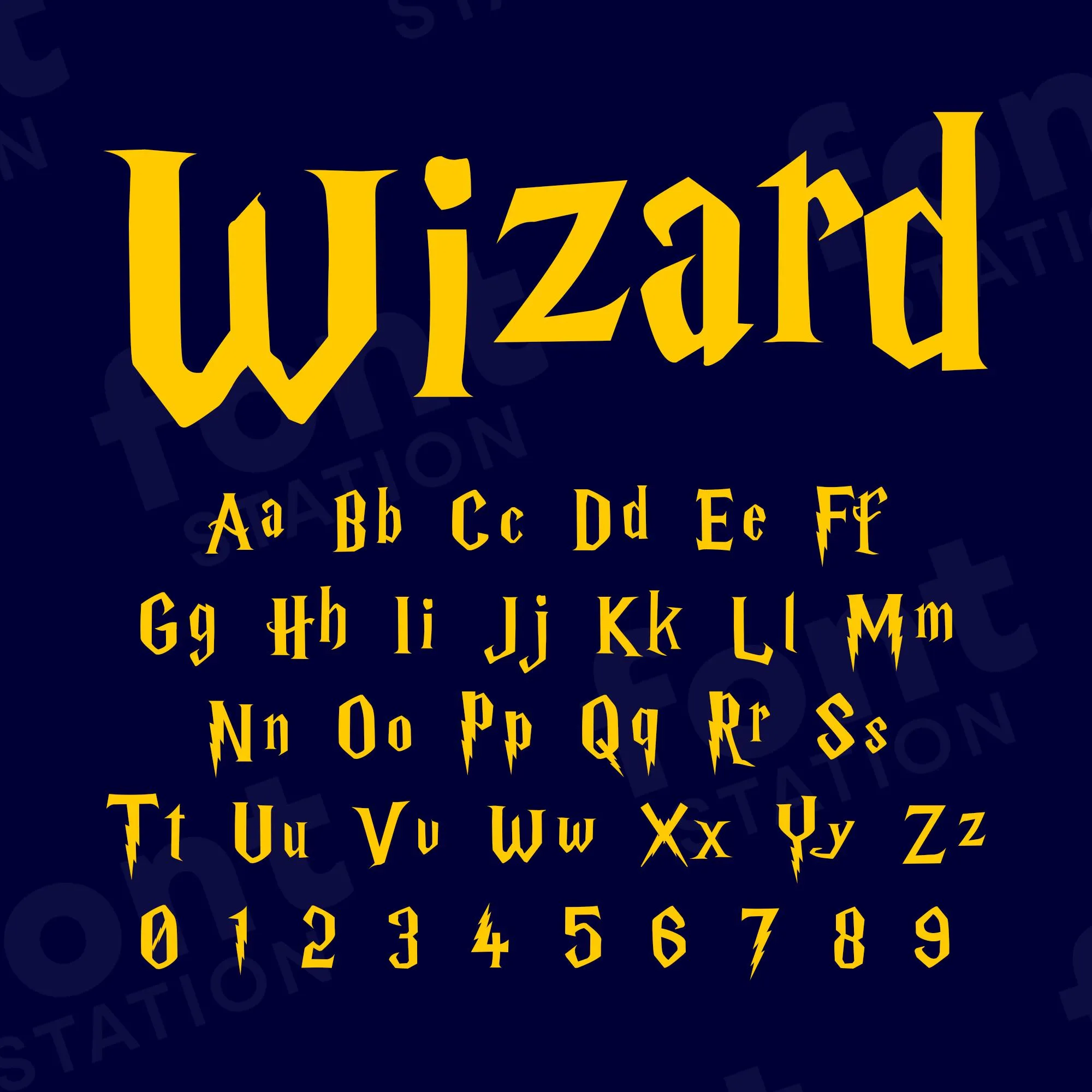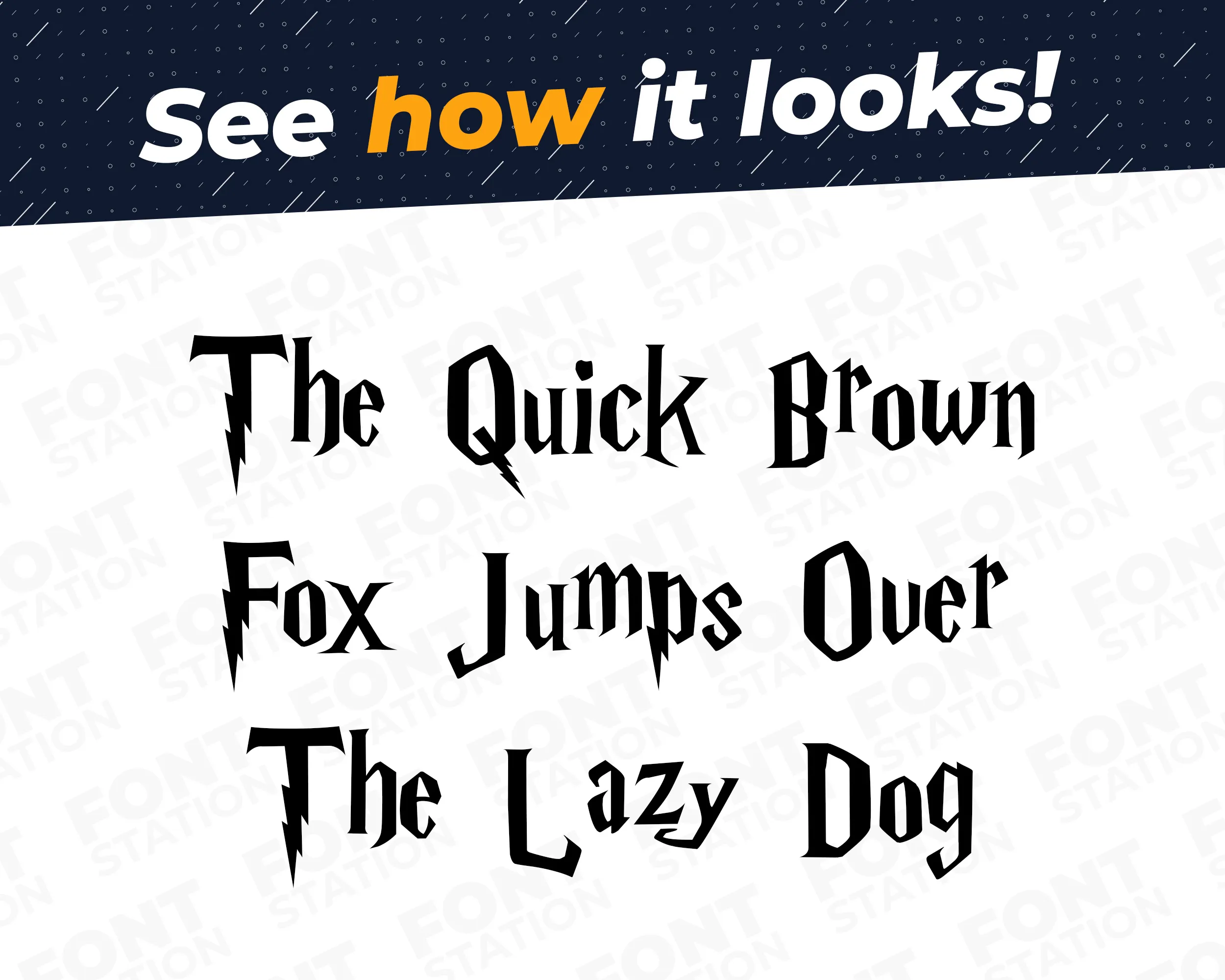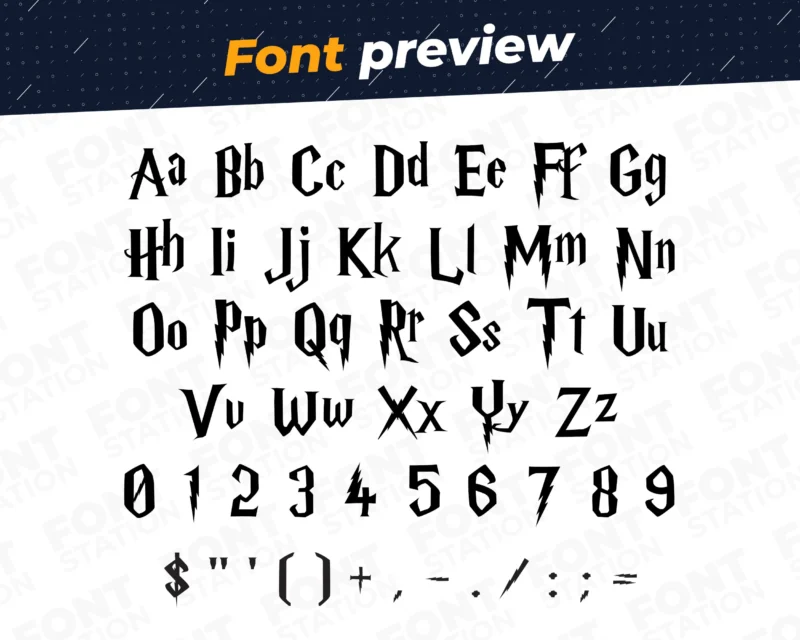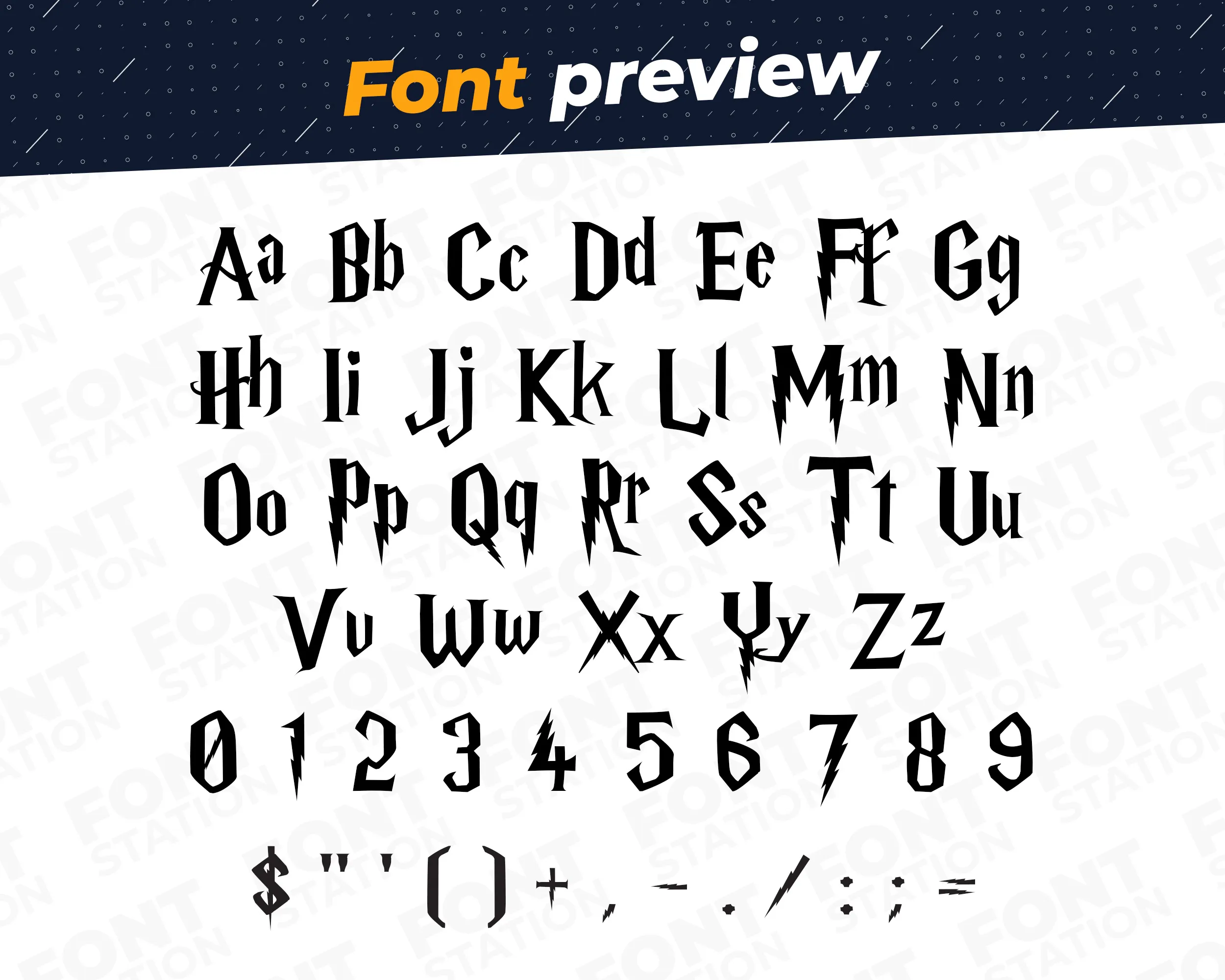
Our Magic Wizard typeface, inspired from Harry Potter font
Grab your computer, tablet or other device and start creating right now with our Harry Potter font letters! Our Magic Wizard typography is inspired from Harry Potter movie font, making it ideal for various digital creations (logo, word…), sublimation, cake toppers, stickers, event decorations, and more.